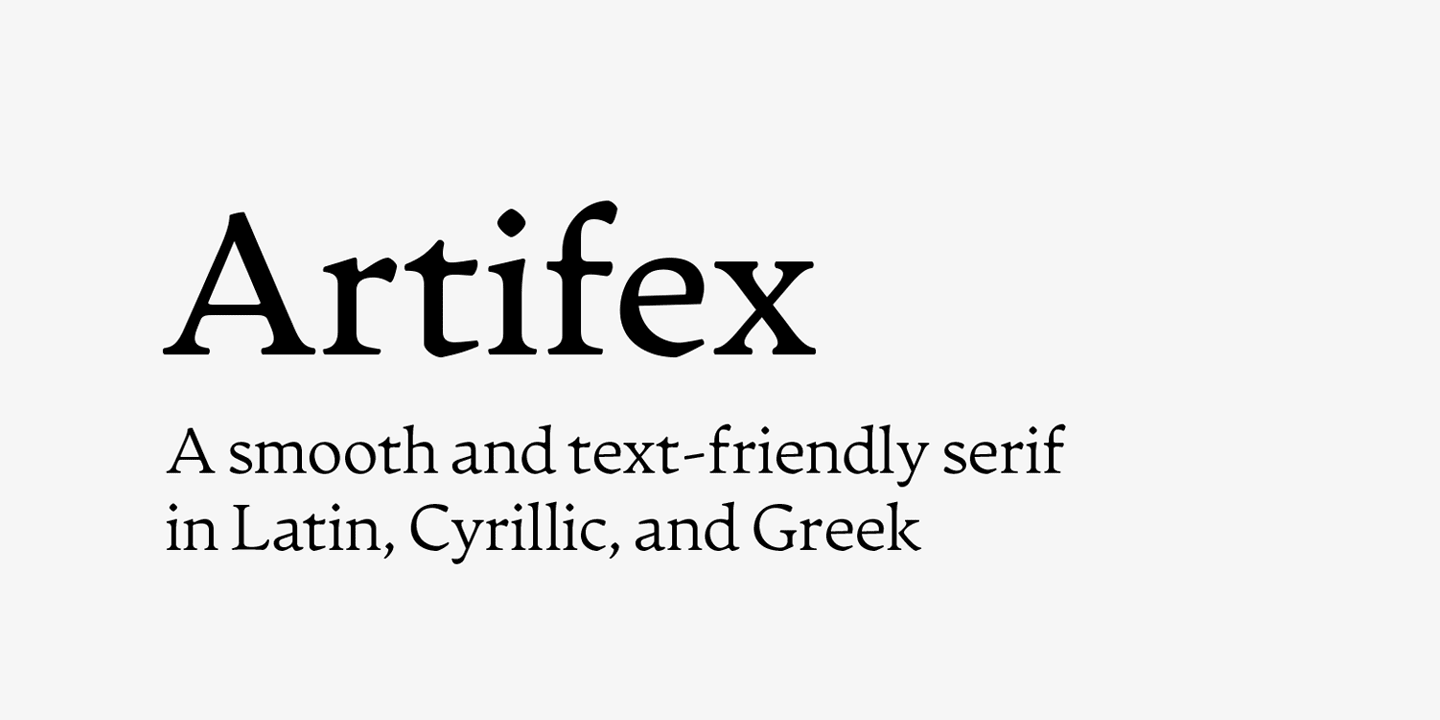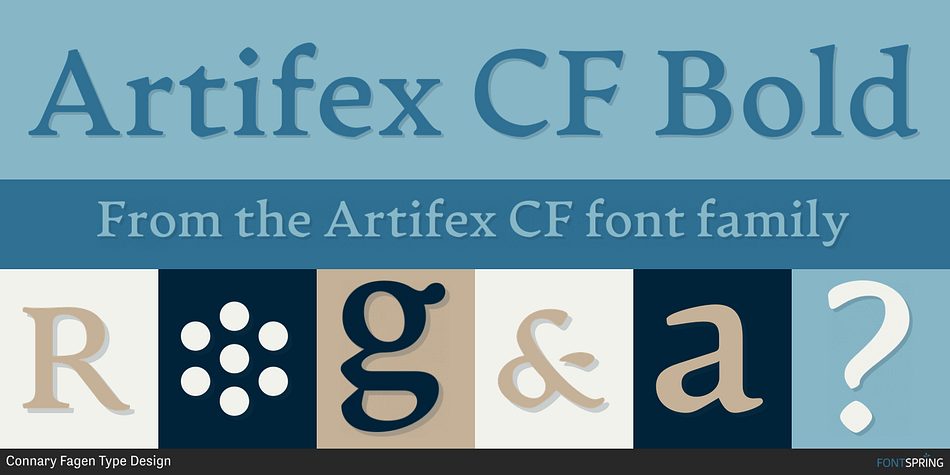
Artifex CF Bold
Designed by Connary Fagen, Artifex CF is a serif font family. This typeface has sixteen styles and was published by Connary Fagen Type Design.
Artifex CF is a text-friendly serif, designed to be easy on the eyes and melt into the page or screen. Artifex’s smooth serifs and elegant italics let text flow effortlessly. Extensive Latin, Cyrillic, and Greek support lends wide language coverage. Artifex also doubles as a handsome display typeface, with details that scale gracefully at any size.
• Eight weights and true italics
• Latin, Cyrillic, and Greek scripts
• Wide language support, including Russian, Greek, Vietnamese and many more
• International Phonetic Alphabet glyphs included
• Latin-script transliteration for Sanskrit, Arabic ALA-LC/DMG/ISO 233, and Pinyin
• OpenType features (fractions, alternates, ligatures)